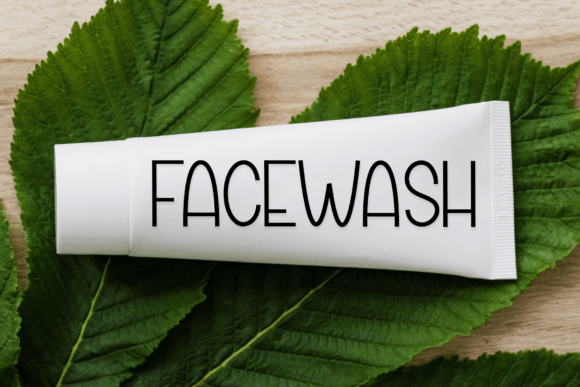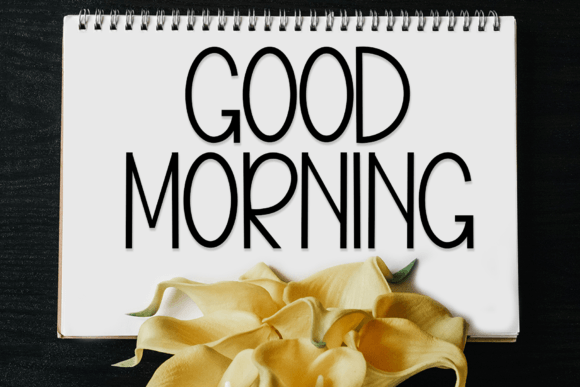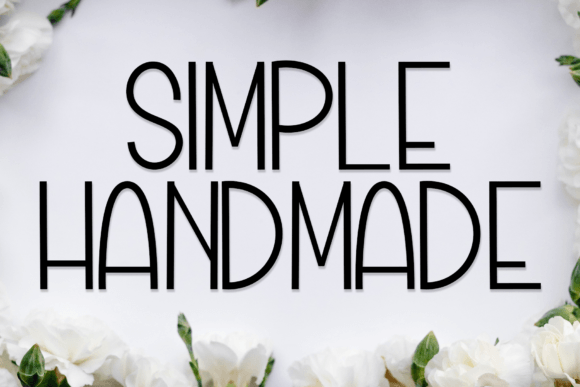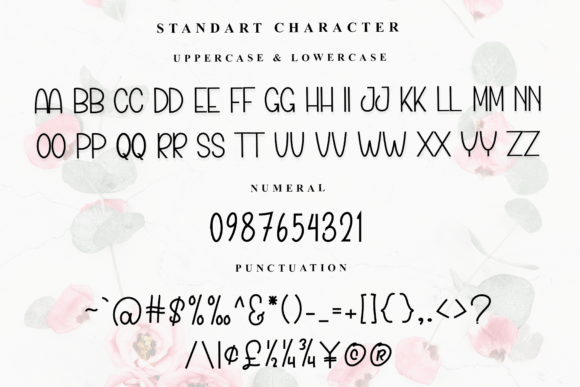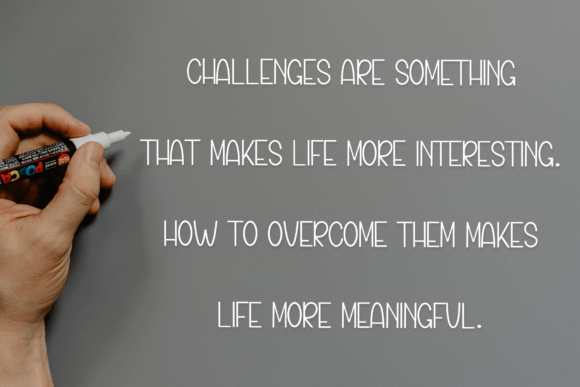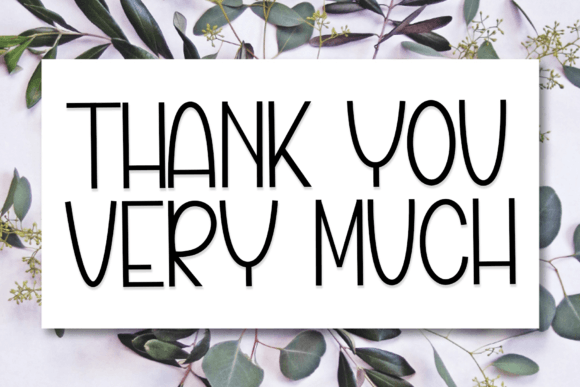
Introducing Bigmom Font: Elevate Your Designs with Timeless Elegance
In the world of typography, fonts play a crucial role in conveying the tone and aesthetic of a design. For designers and crafters seeking a stylish and contemporary sans-serif font, Bigmom Font is an exceptional choice. Inspired by timeless classic calligraphy, Bigmom boasts a balanced and varied design, making it perfect for enhancing the beauty of your projects.
The Inspiration Behind Bigmom Font
Bigmom Font draws inspiration from traditional calligraphy, infusing it with a modern twist. This blend of classic and contemporary elements results in a font that exudes sophistication and elegance. The creator of Bigmom Font aimed to produce a typeface that not only pays homage to the past but also meets the demands of modern design.
Key Features of Bigmom Font
- Stylish Sans-Serif Design: Bigmom Font features a sleek and modern sans-serif design, making it versatile for various applications, from digital media to print materials.
- Contemporary Atmosphere: The font’s contemporary vibe ensures that your designs feel fresh and up-to-date, perfect for brands and projects looking to make a statement.
- Impeccable Form: With a focus on impeccable form, Bigmom Font offers clean lines and precise curves, contributing to its overall aesthetic appeal.
- Balanced and Varied: The font’s balanced and varied design ensures that it can be used across different mediums and projects, from headings and titles to body text.
Applications of Bigmom Font
Bigmom Font’s versatility makes it suitable for a wide range of design projects, including:
- Branding and Logos: Create memorable and stylish logos that stand out.
- Digital Media: Enhance your website, social media posts, and digital advertisements with a touch of elegance.
- Print Materials: From brochures and flyers to business cards and posters, Bigmom Font adds a level of sophistication.
- Crafting and DIY Projects: Perfect for crafters, the font can be used in handmade cards, journals, and other creative endeavors.
Why Choose Bigmom Font?
In a sea of fonts, Bigmom stands out for several reasons:
- Unique Aesthetic: The font’s unique blend of classic inspiration and modern design makes it a standout choice.
- Versatility: Its balanced and varied nature makes Bigmom Font adaptable to various design needs.
Bigmom Font is a stylish sans-serif font that brings a touch of timeless elegance to any design project. Its contemporary atmosphere, impeccable form, and versatility make it an excellent choice for designers and crafters looking to elevate their work. With its PUA encoding for easy access to glyphs and ligatures, Bigmom Font is not only beautiful but also practical. Whether you’re working on branding, digital media, print materials, or crafting projects, Bigmom Font is sure to enhance the beauty and impact of your designs.